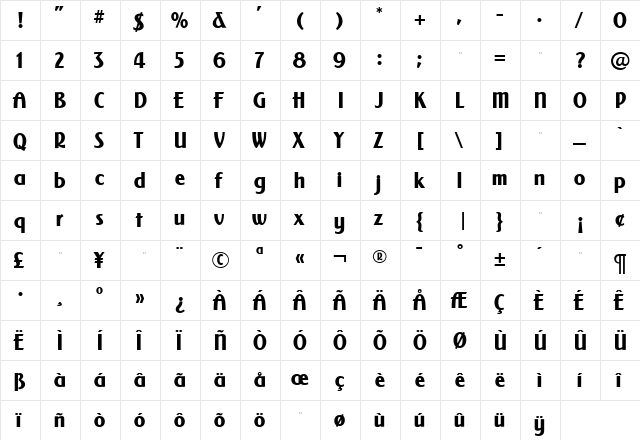
SaintLouisExtraBold Roman
Design Context for SaintLouisExtraBold Typeface
SaintLouisExtraBold is a composed and adaptable typeface that performs quietly and consistently across a wide range of design contexts. Its bold stroke weight gives it real presence on the page.